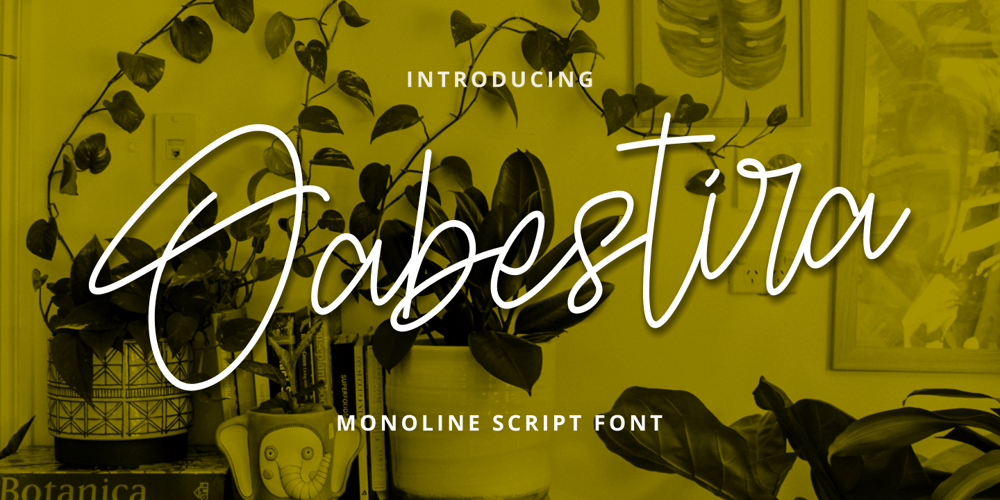
Oabestira Font Family was designed by Abdullah Mabhal and published by Mabhal Studio. Oabestira contains 1 styles and family package options. Oabestira is an asymmetrical and timeless handwritten font. It is the best choice for creating eye-catching logos, branding and quotes. Every letter has a unique and beautiful touch, which will make your design come alive!